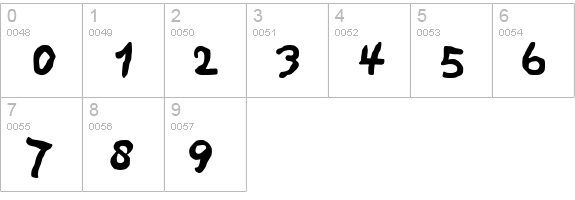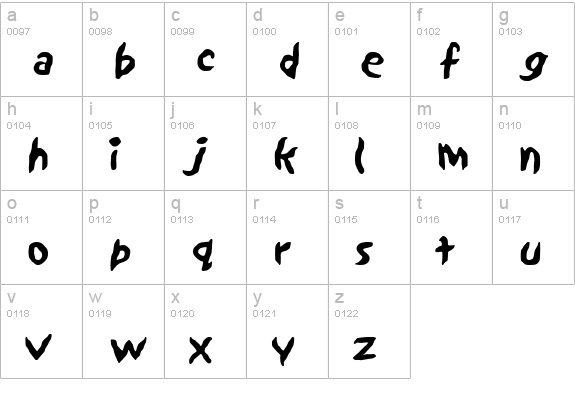
Sand Bureau Font Details
Sand Bureau font is a stunning typeface that effortlessly captures the essence of sandy beaches and coastal adventures. With its unique and eye-catching design, this font is sure to make a statement in any project or design. The Sand Bureau font features a perfect blend of smooth curves and sharp edges, creating a harmonious balance that is both modern and timeless. Its elegant and versatile nature makes it suitable for a wide range of applications, from logo design to branding, packaging, posters, and more. One of the best things about Sand Bureau font is that it is absolutely free! Yes, you read that right. This remarkable font is freely available to download at FontsMarket.com, a trusted source for high-quality and unique fonts. Whether you are a professional designer or simply a font enthusiast, you can easily access and enjoy the beauty of Sand Bureau font without spending a dime. So why wait? Dive into the world of creativity and inspiration with Sand Bureau font. Its bold and distinctive style will elevate your designs and leave a lasting impression on your audience. Download it for free today at FontsMarket.com and unleash your artistic potential.